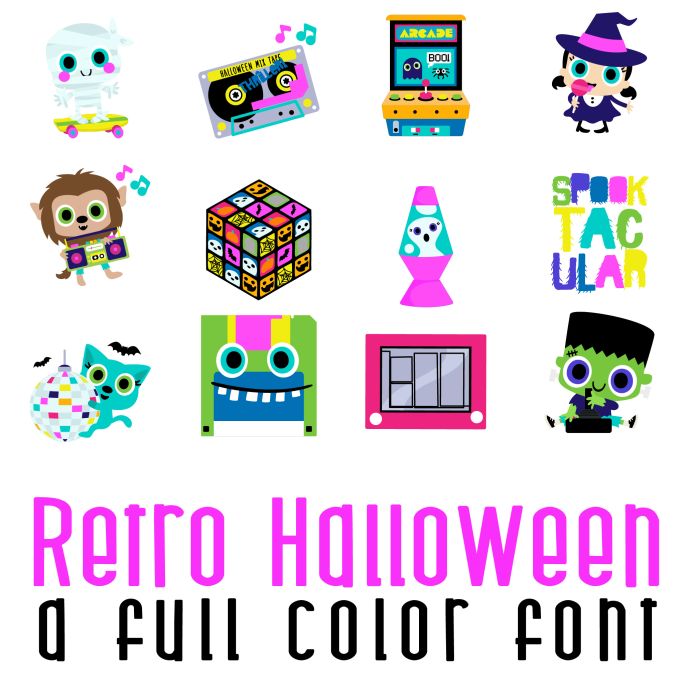
Retro Halloween Full Color Font
A full-color font stores svg data inside an Open Type font file. This font will look black if not used in a program like Silhouette Studio which is compatible. Images can be pulled apart with some vector programs like Illustrator and cut with your cutting machine. This fun full color font features 26 adorable monsters living in the retro past, with items from the 80s and 90s. Perfect for Halloween, cards, crafts, parties, gifts, decor, planner stickers, classrooms, scrapbook pages and more!